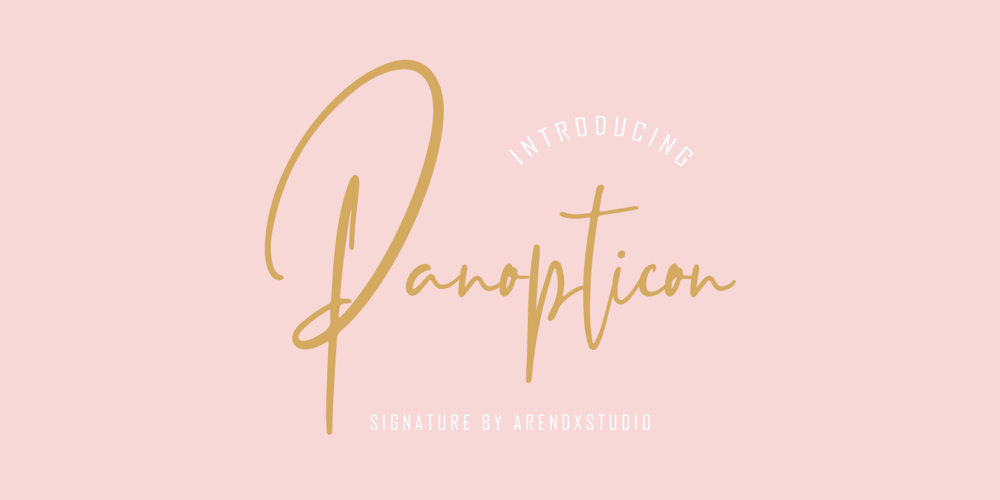
Panopticon Font Family was designed by Asep Rendi and published by Arendxstudio. Panopticon contains 1 styles and family package options. Panopticon Signature is a very elegant and modern handwritten font which is for you to use for logos, branding names, posters, podcasts and so on. Panopticon is perfect for all this. It features uppercase and lowercase, numbers and punctuation, ligatures and has multi-lingual support. I really hope you enjoy it. Comments and likes are always welcome and accepted. More importantly, don’t hesitate to send a message if you have a problem or question. Now just read this, go there and make it happen.